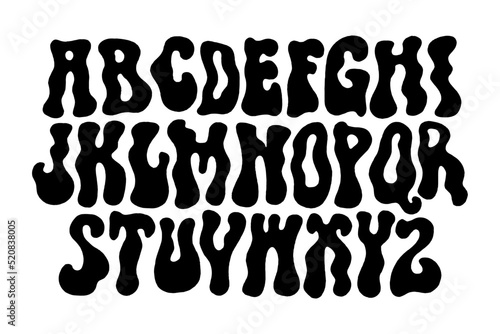
Hippie bohemian groovy postmodern funky font alphabet 1960s boho psychedelic style. Perfect for posters, collages, clothing, music albums and more. Vector clipart illustrations, isolated letters.